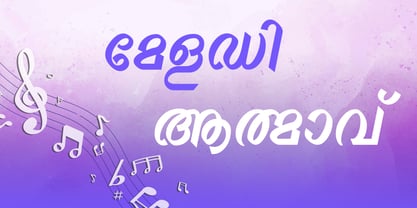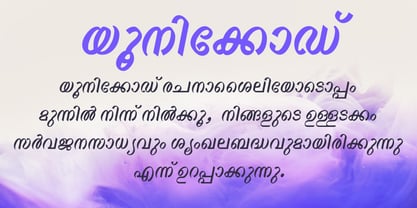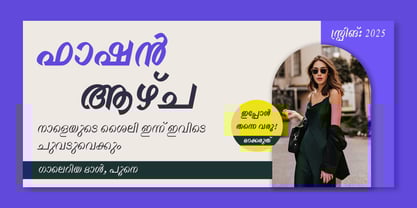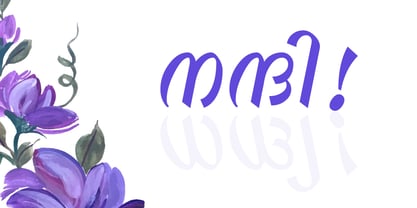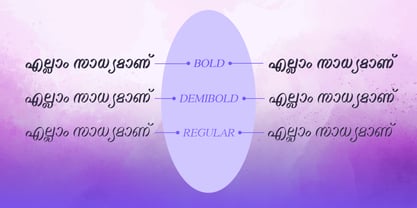
Shree Malayalam 0523
by Modular InfoTech
The Shree Malayalam 0523 Font Family was designed by Modular Infotech and published by Modular InfoTech. Shree Malayalam 0523 contains 6 styles and family package options.
CalliShree Malayalam 0523 is an elegant, calligraphic display family with a gentle slant and fluid, brush-like motion that reads as refined and expressive. It is available in three weights — Regular, Medium, Bold, each with matching italic. It emphasizes cursive continuity and rhythmic terminals to create a warm, personalized voice at larger sizes. The contrast between hairline strokes and fuller curves gives the typeface a refined decorative quality, while retaining clarity, making it a tasteful, humanistic alternative to strictly geometric display faces. This typeface is ideal for invitations, greeting cards, invitations, boutique or fashion branding, cultural and lifestyle publications, and editorial feature titles that need an elegant, hand-lettered Malayalam expression. It is also well suited for logotypes and decorative packaging where a bespoke, artisanal tone is desired. It can be paired with a neutral text typeface for longer copy to preserve legibility.
Shree Malayalam 0523